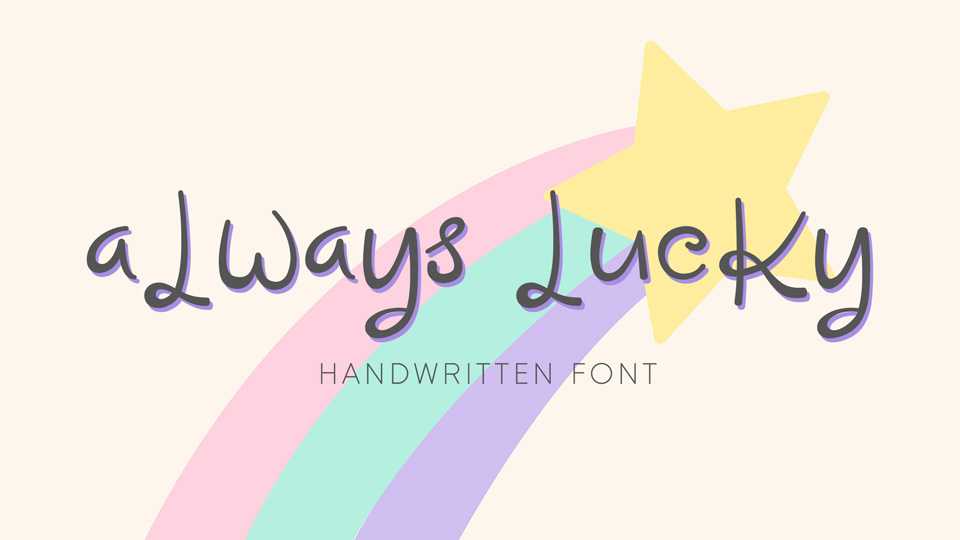
Download Always Lucky font, a lovely playful handwritten script. Always Lucky font is suitable for everyday designs, notes, quotes, letters, cards, social media and more.
Designer: Subectype